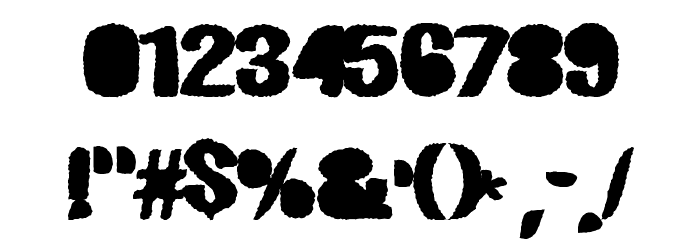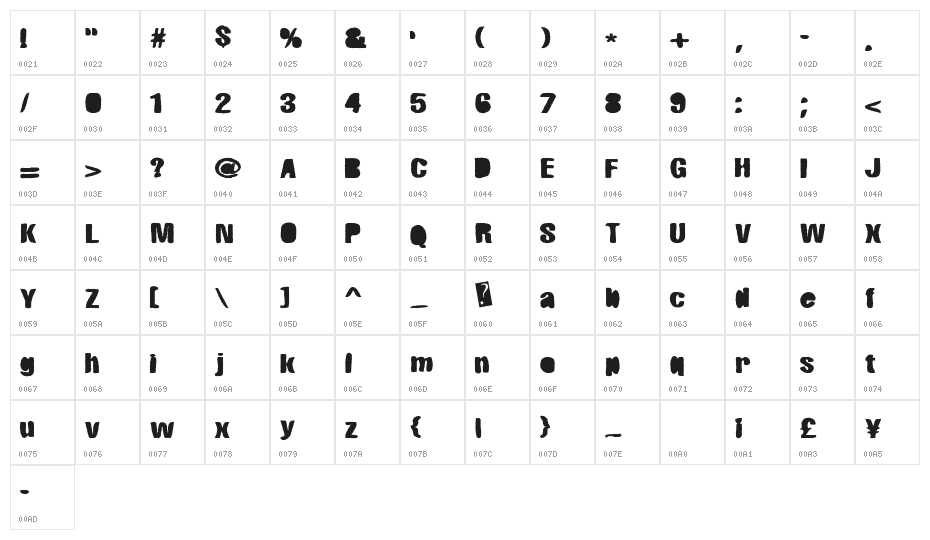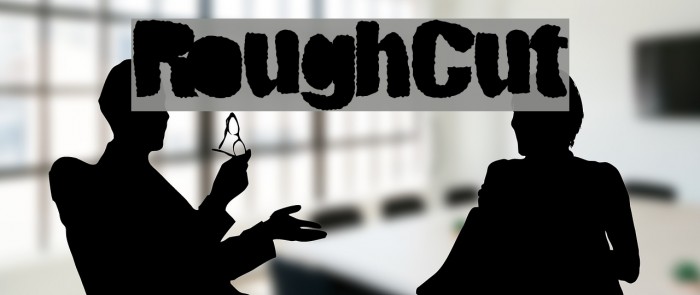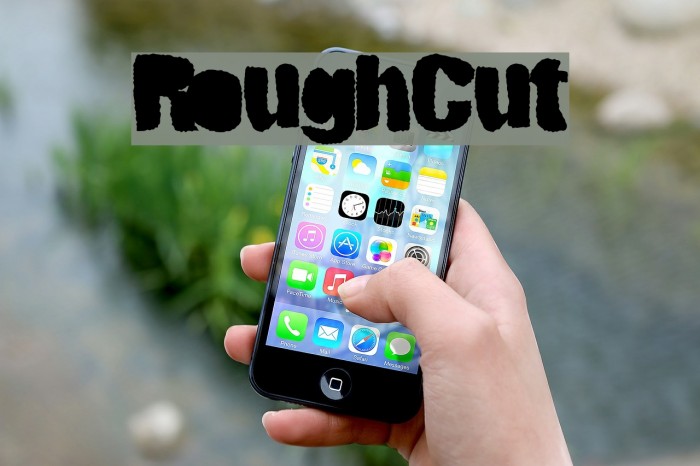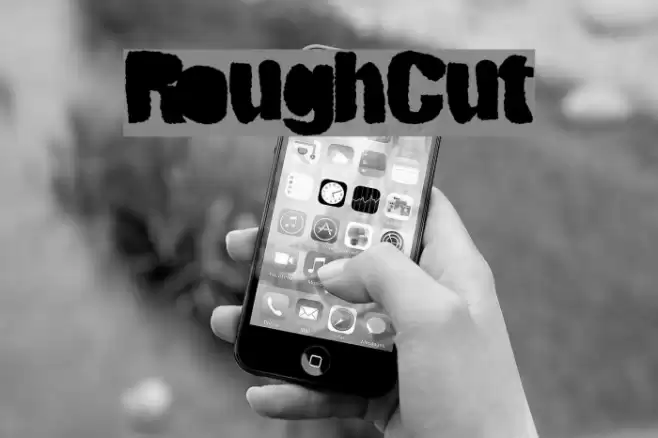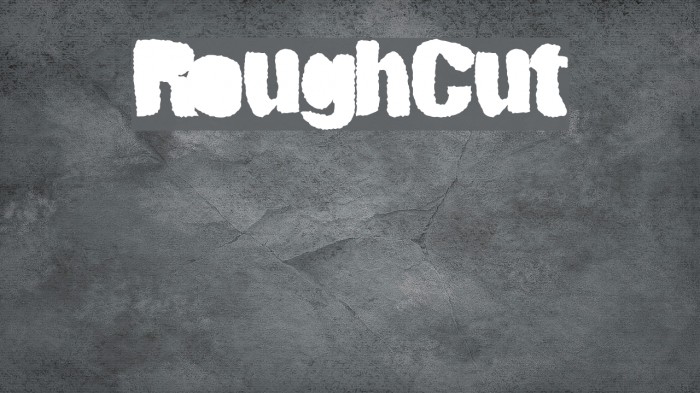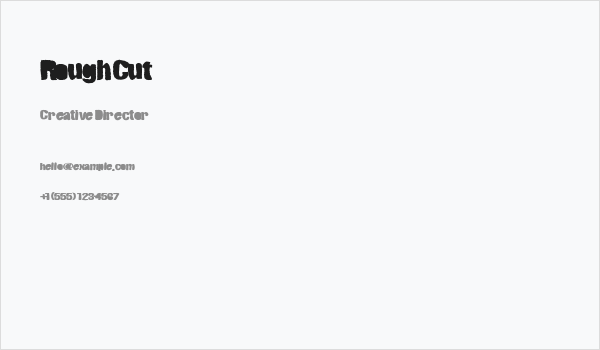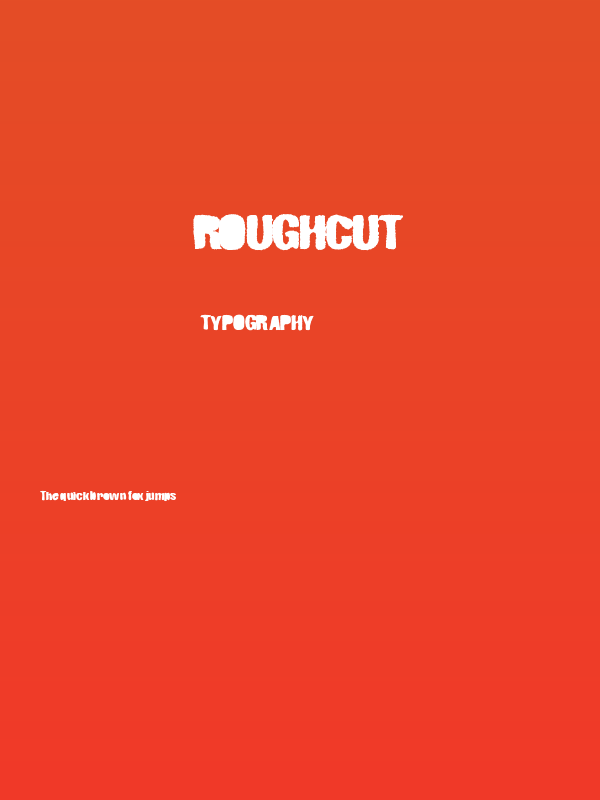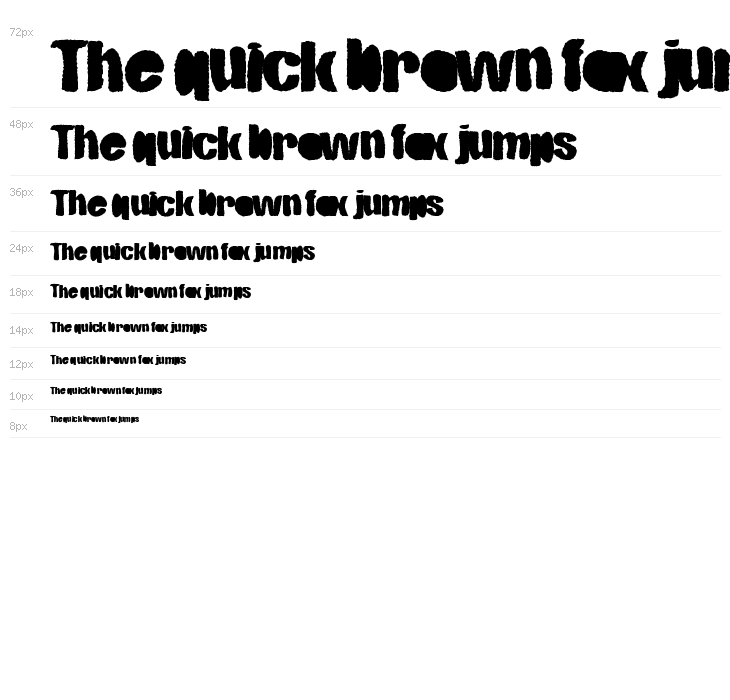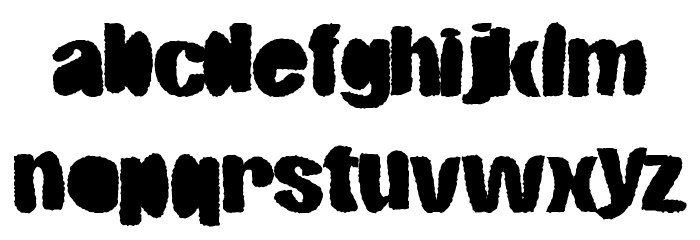
RoughCut Font
RoughCut Description
This font features a bold and rugged design with a distinctly hand-cut appearance. The characters are thick and heavy, with irregular edges that give it a raw, organic feel. The uppercase and lowercase letters maintain a consistent weight, creating a cohesive look across the alphabet. Numbers and special characters follow the same stylistic approach, ensuring uniformity. The font's unique texture and bold presence make it ideal for projects that require a strong visual impact.
| Proposed Projects | Perfect for posters, album covers, branding, and any design needing a bold, impactful statement. |